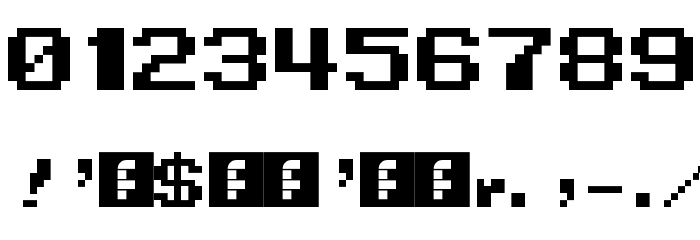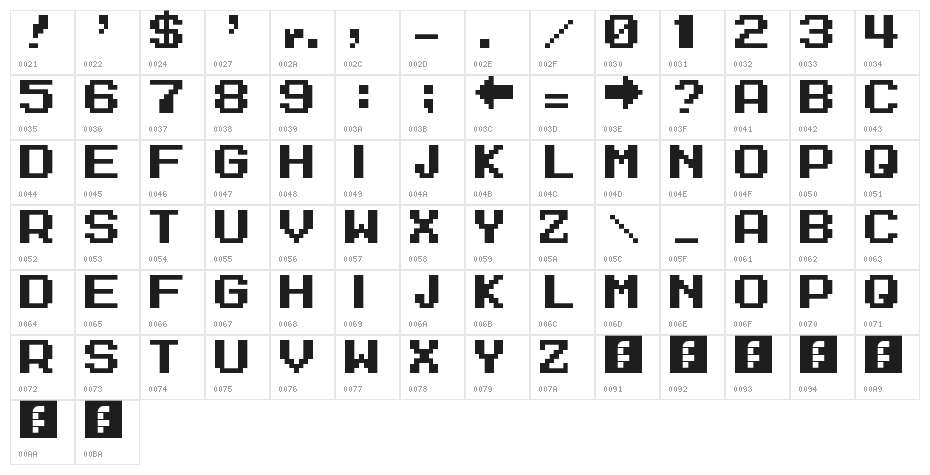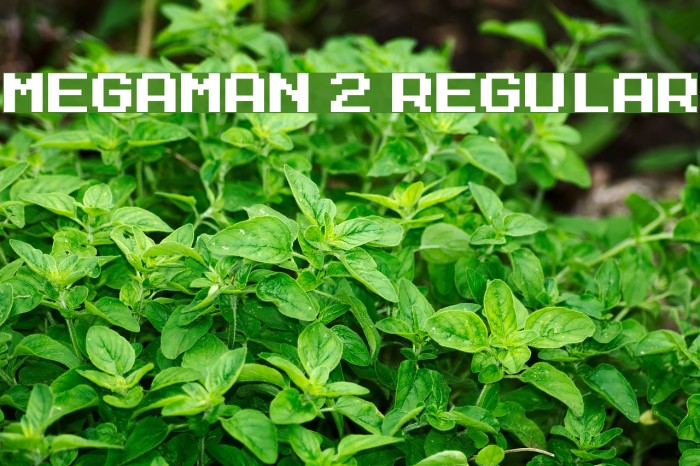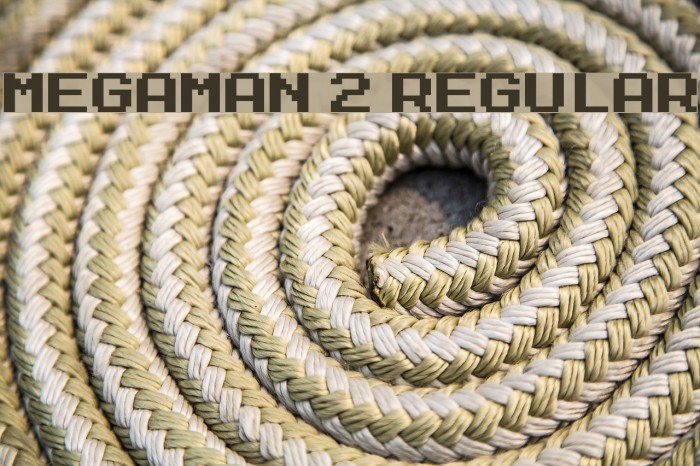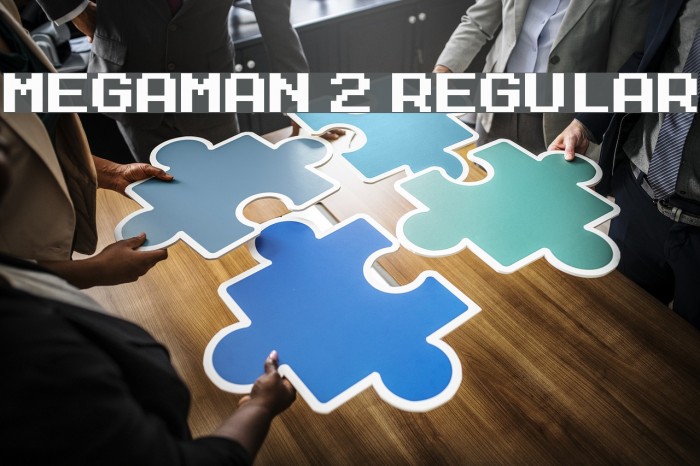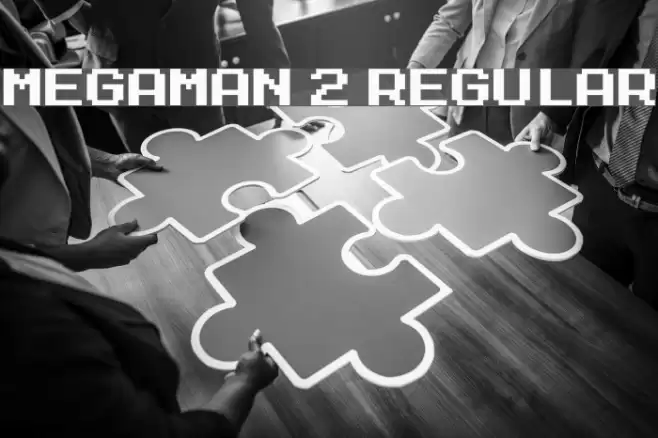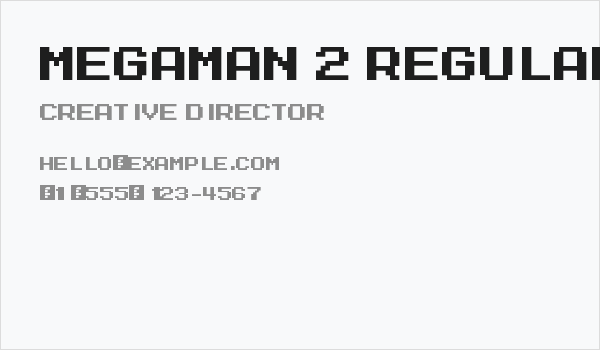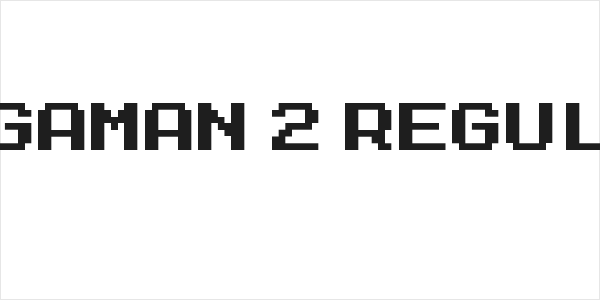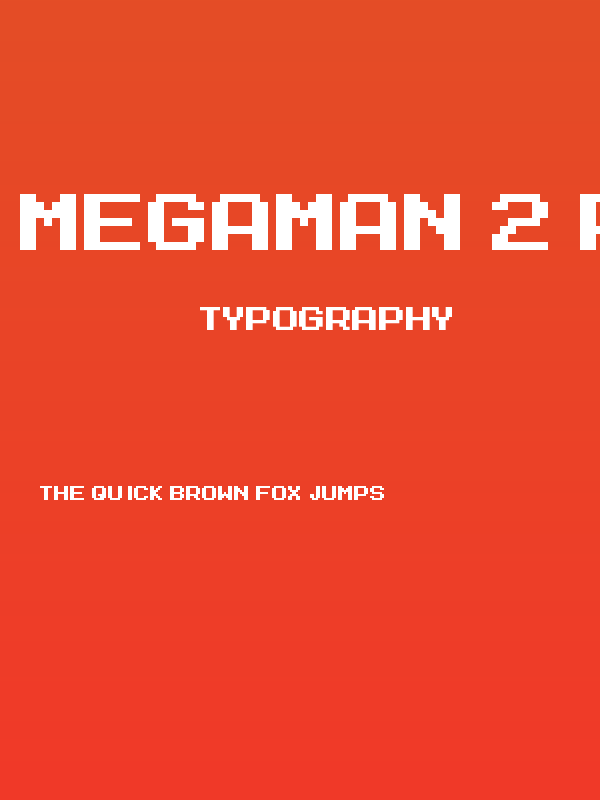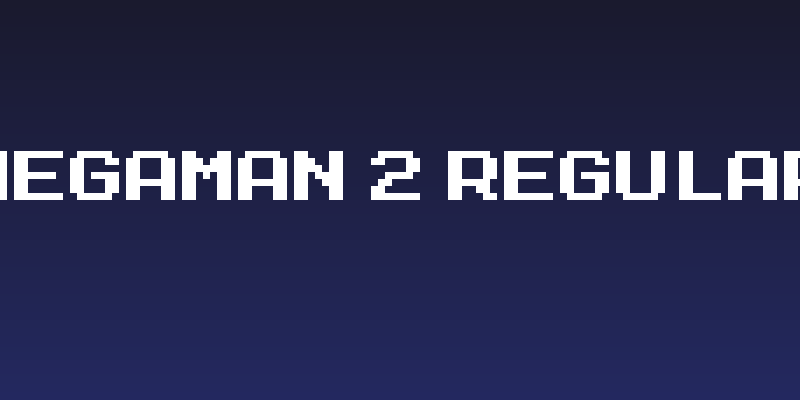
MegaMan 2 Regular Font
MegaMan 2 Regular Description
This font embodies a retro, pixelated style reminiscent of classic video games from the 1980s. Each character is constructed with a blocky, grid-like appearance, giving it a distinctly digital and nostalgic feel. The uppercase and lowercase letters maintain a uniform height, contributing to a cohesive and structured look. The numerals and special characters follow the same pixelated design, ensuring consistency across all glyphs. This font's design is straightforward and bold, making it highly legible even at smaller sizes. Its geometric shapes and sharp edges evoke a sense of simplicity and functionality, ideal for projects that aim to capture a vintage or tech-inspired aesthetic.
| Use Case | Headlines, Logos, Digital displays |
| Proposed Projects | Ideal for retro-themed video games, digital artwork, tech-inspired branding, and nostalgic design projects. |